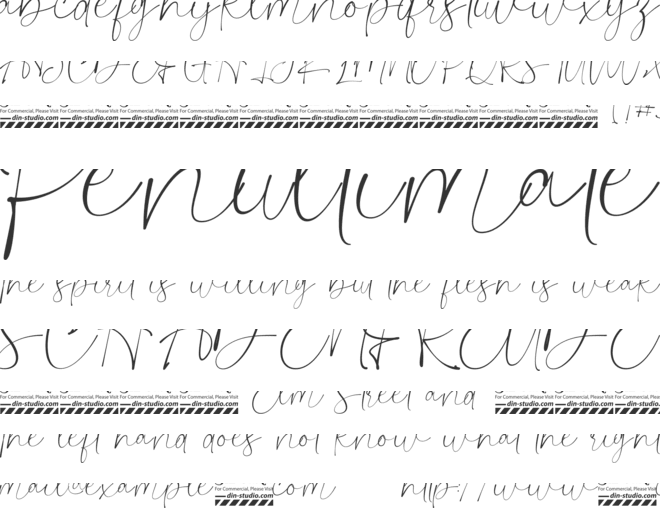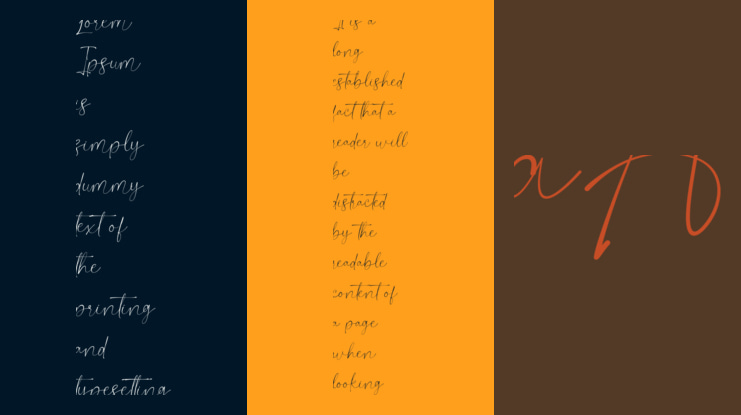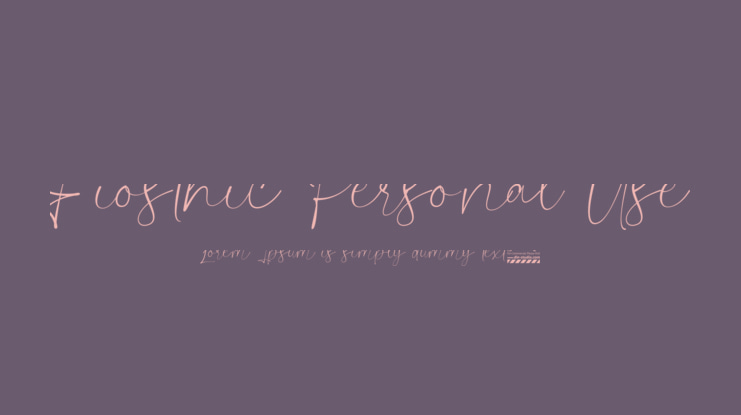
Fiosthic is a modern signature font with natural and handwritten style. It brings a elegant and attractive typeface. Made for any professional project branding. It is the best for logos, branding, wedding and quotes